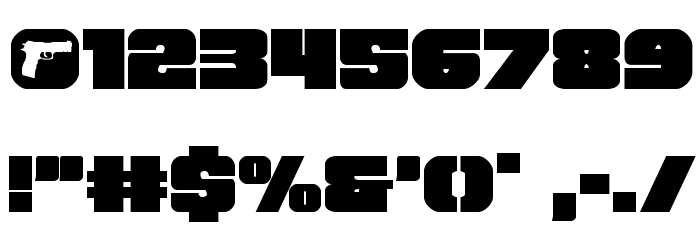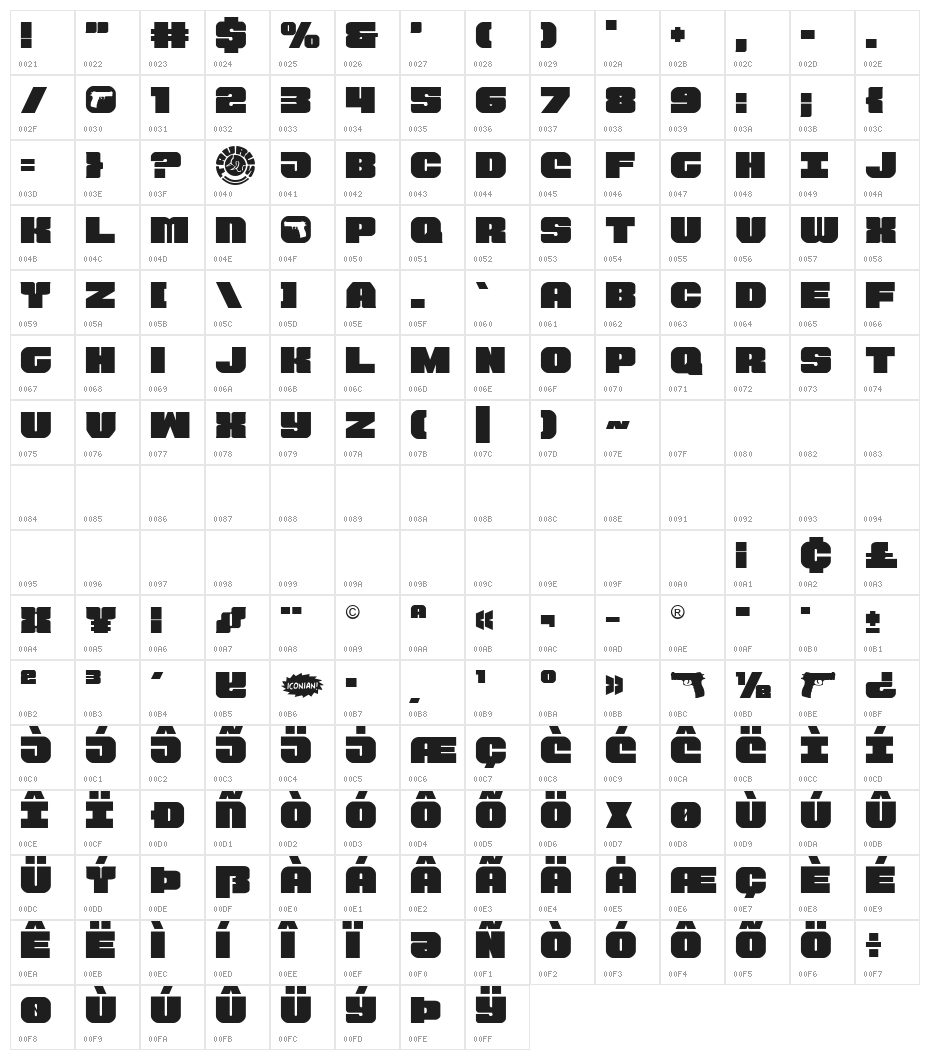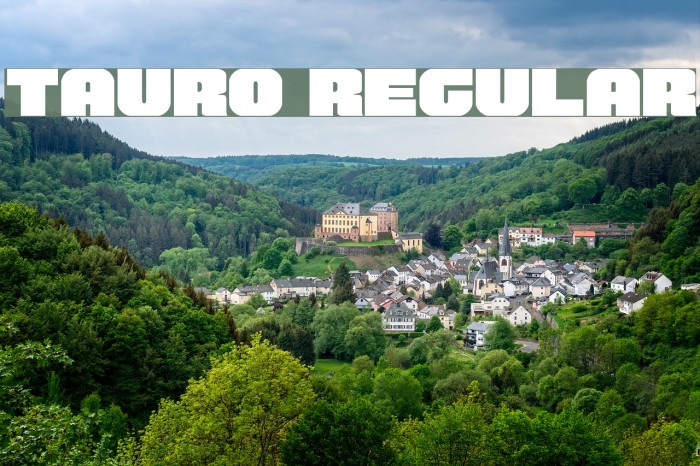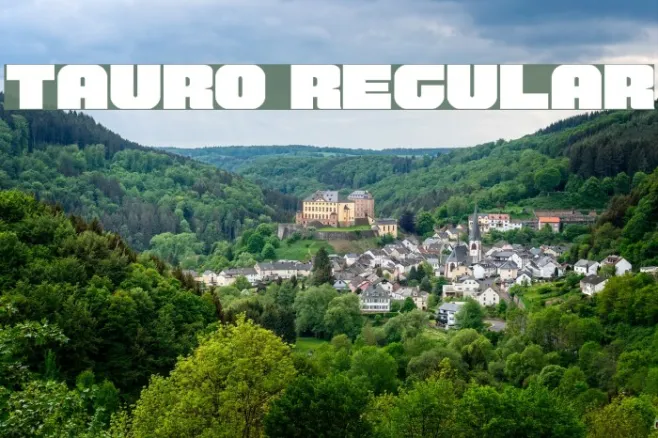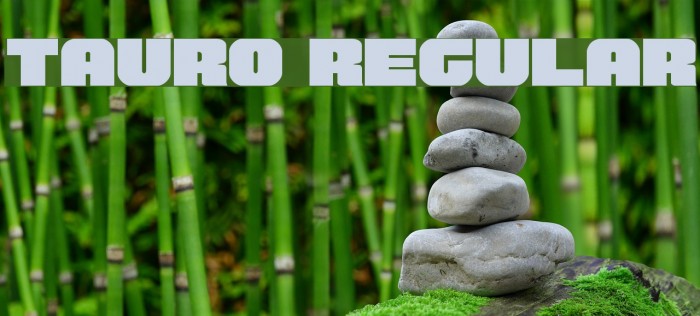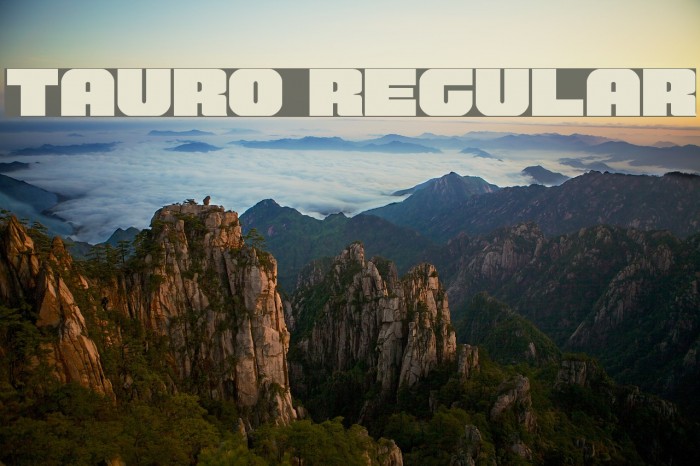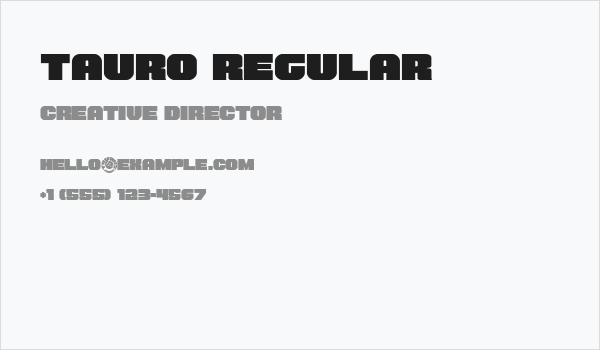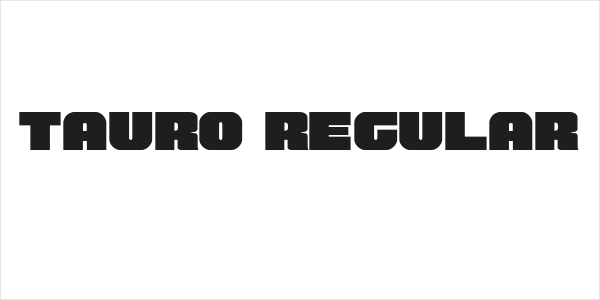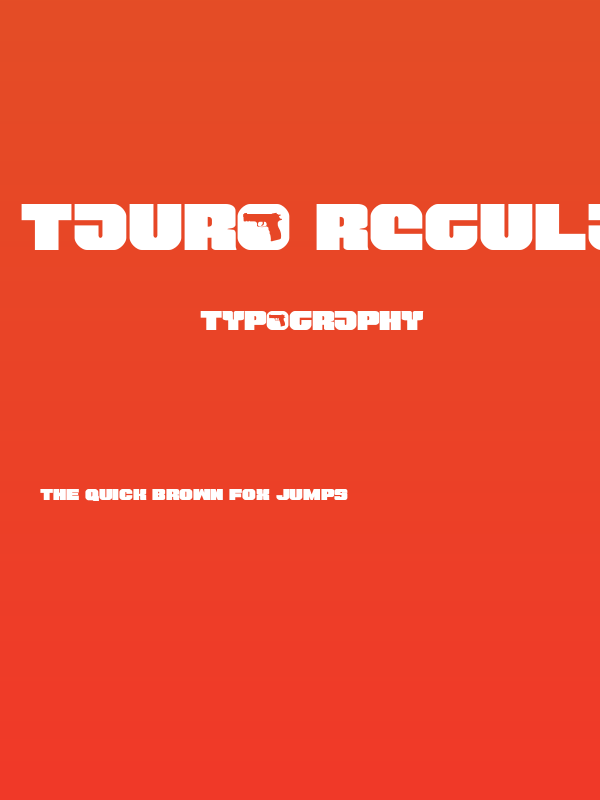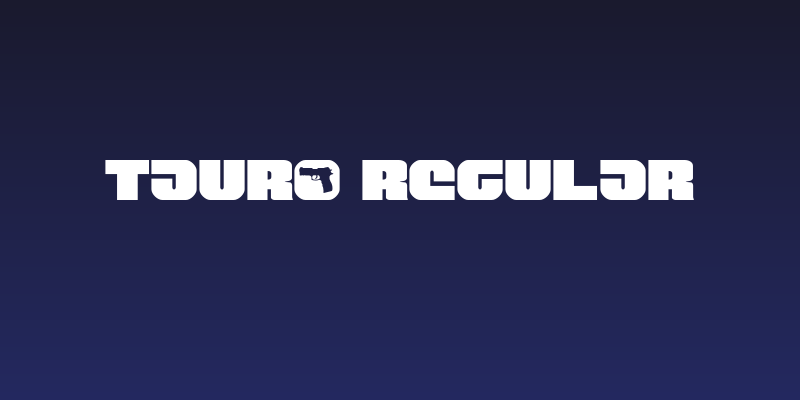
Tauro Regular Font
Tauro Regular Description
This bold and impactful font features a strong, geometric design with thick, block-like characters. The uppercase letters are uniform in height, creating a cohesive and powerful visual presence. The font includes a unique character with a gun symbol, adding a distinctive and edgy element. Numbers are equally bold and consistent, maintaining the overall robust aesthetic. Special characters are designed to match the heavy, solid style, ensuring a seamless integration with the rest of the typeface. This font is ideal for projects that require a strong, commanding visual impact.